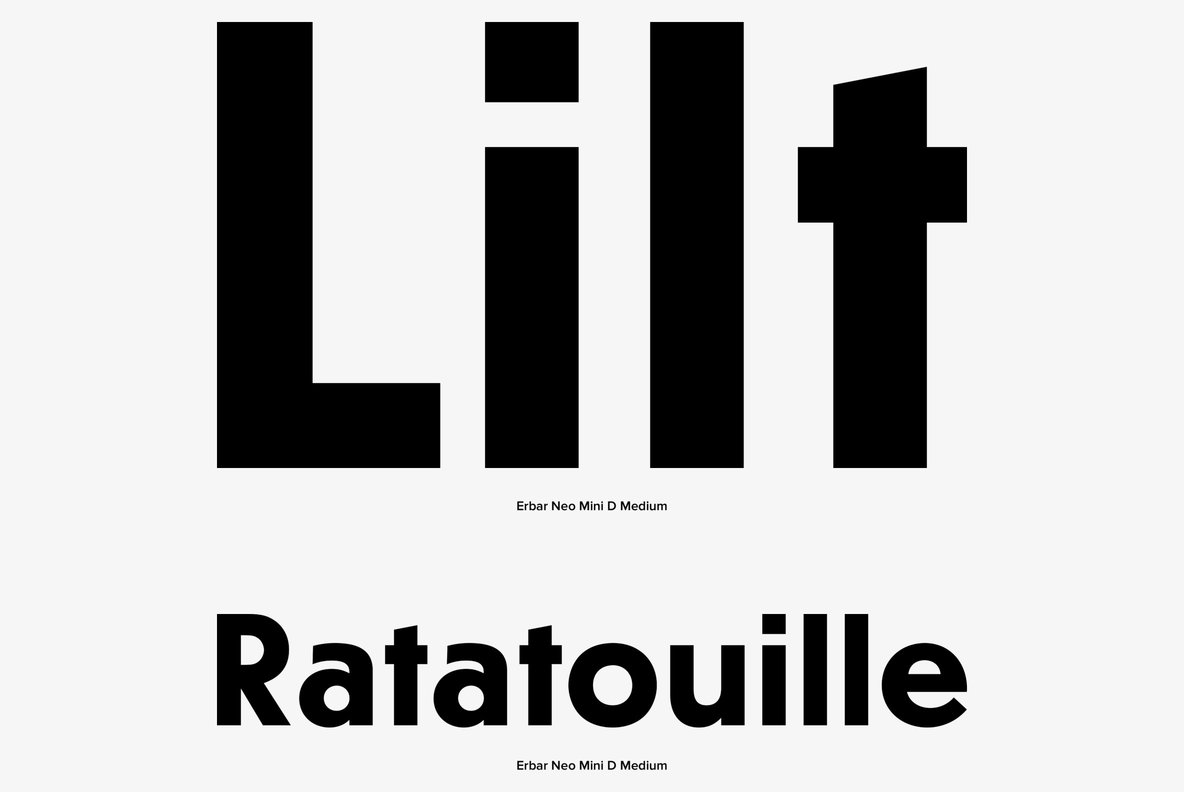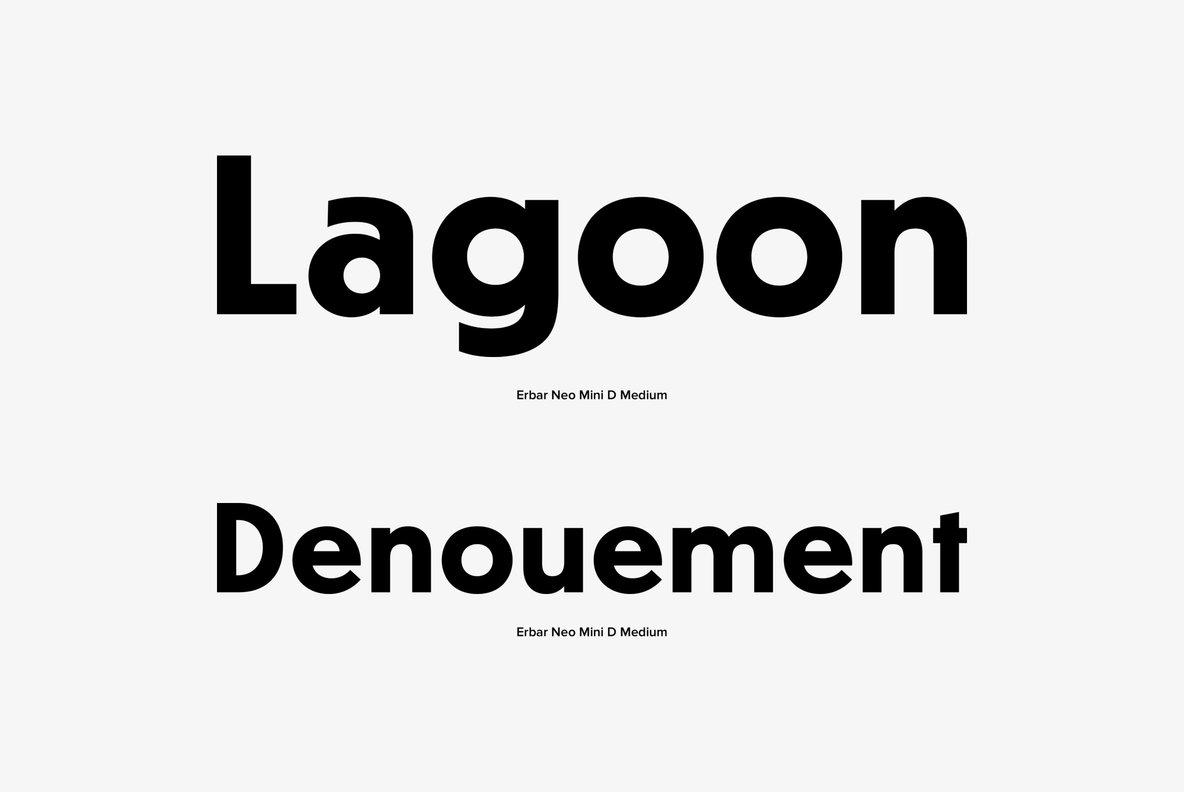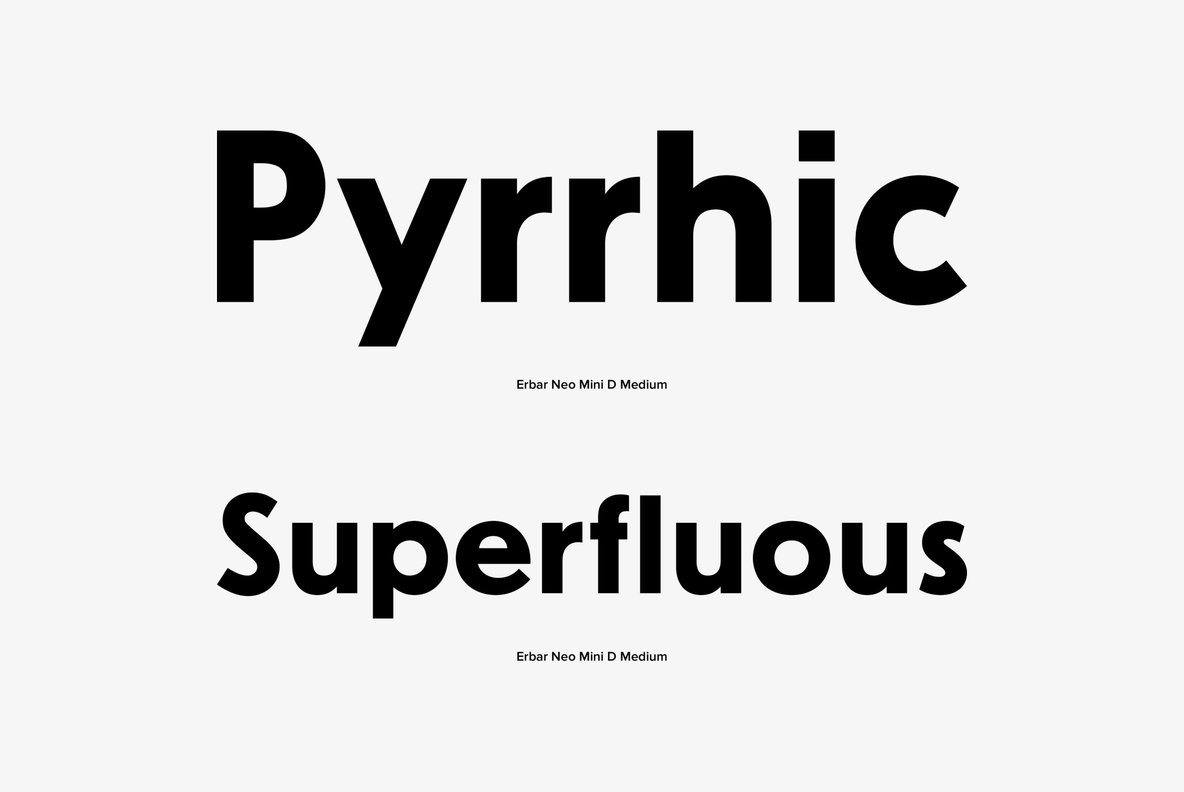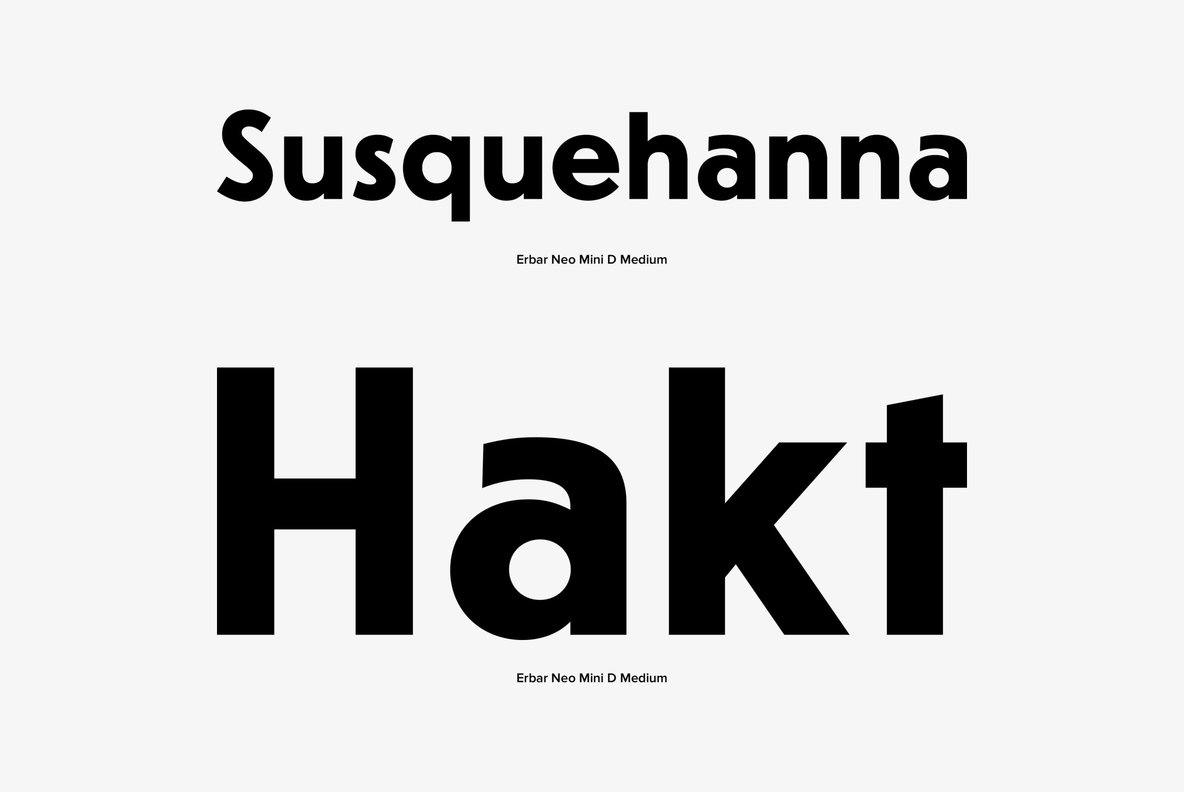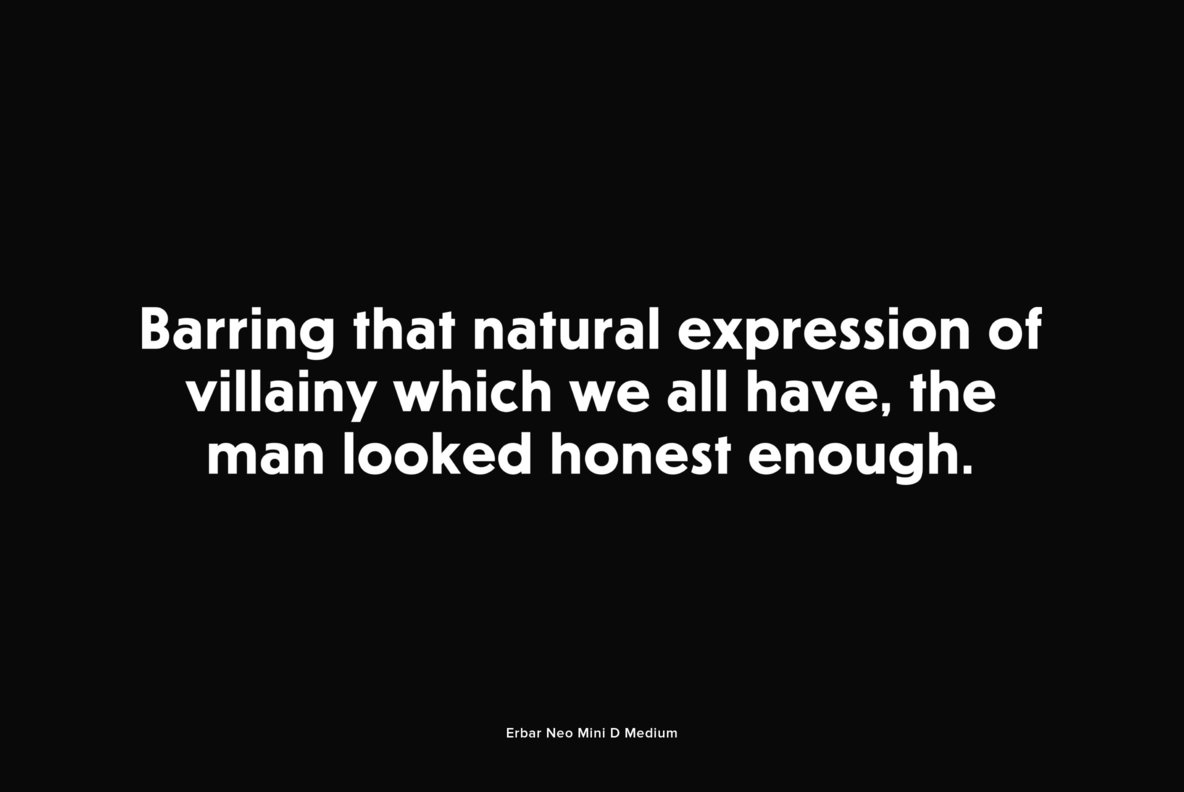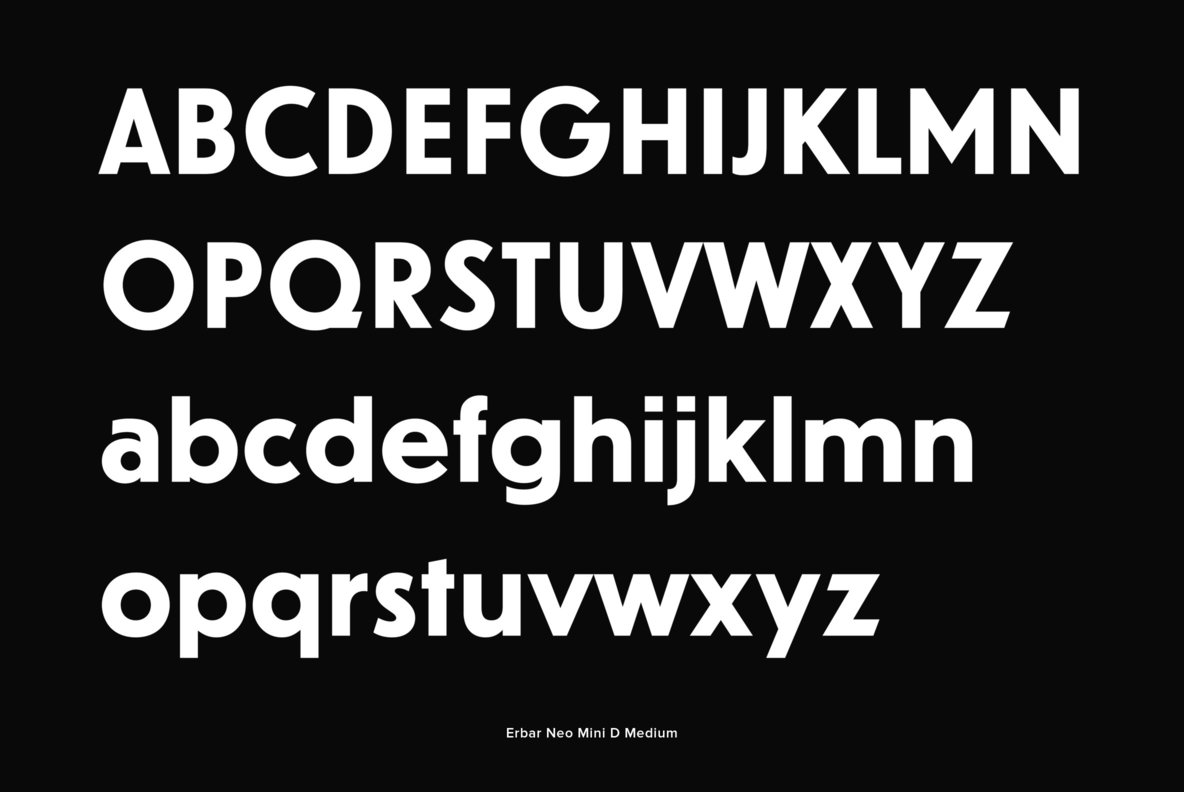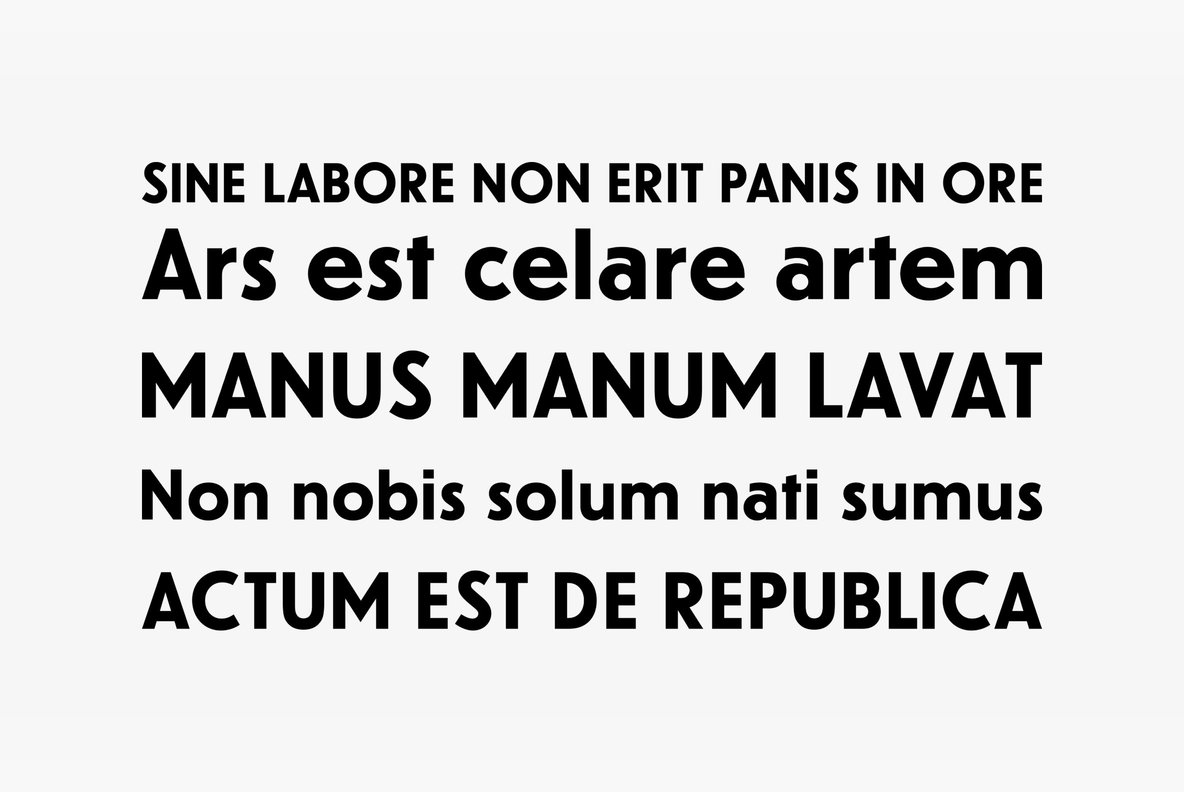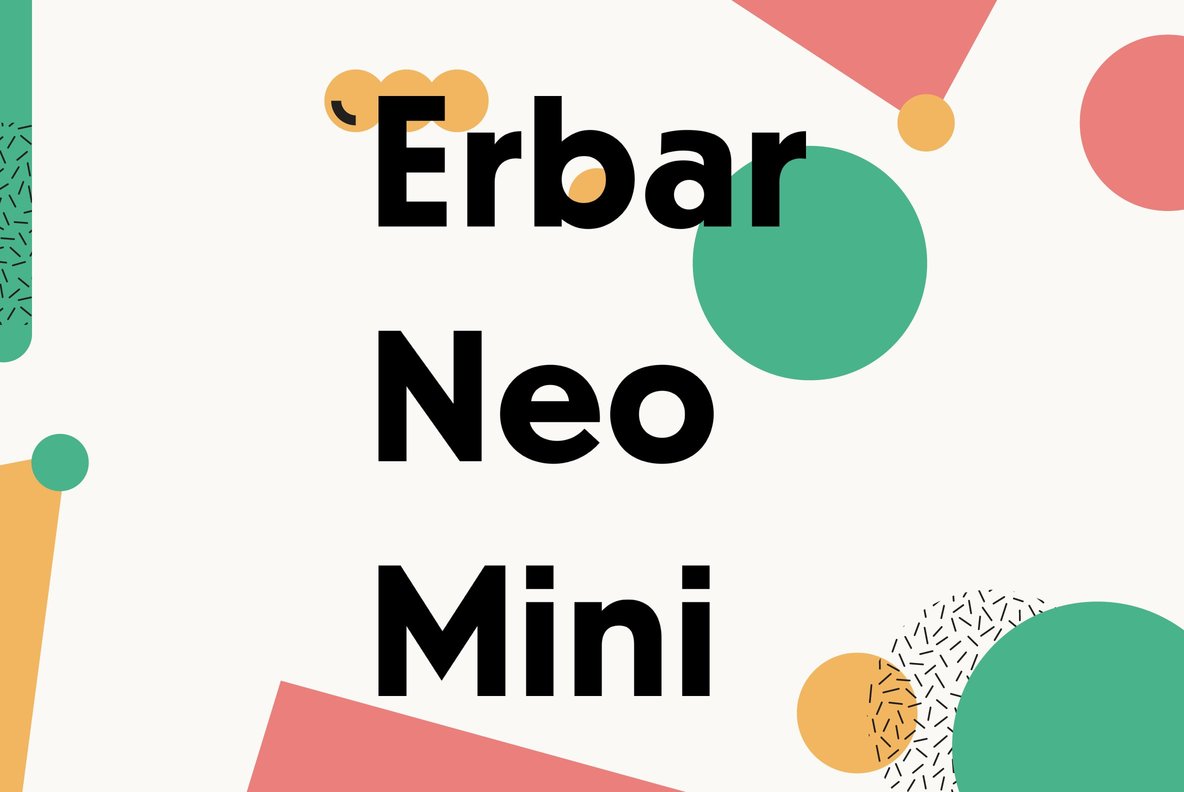
Erbar Neo Mini Font
Erbar, designed by Jakob Erbar for Ludwig & Mayer in the early 1920s, is truly a key design from a historical viewpoint. None other than Paul Renner studied Erbar and used this knowledge in the desing of his famous Futura. Erbar is a beautiful constructive Grotesk, perfectly mirroring the zeitgeist of the 1920s.